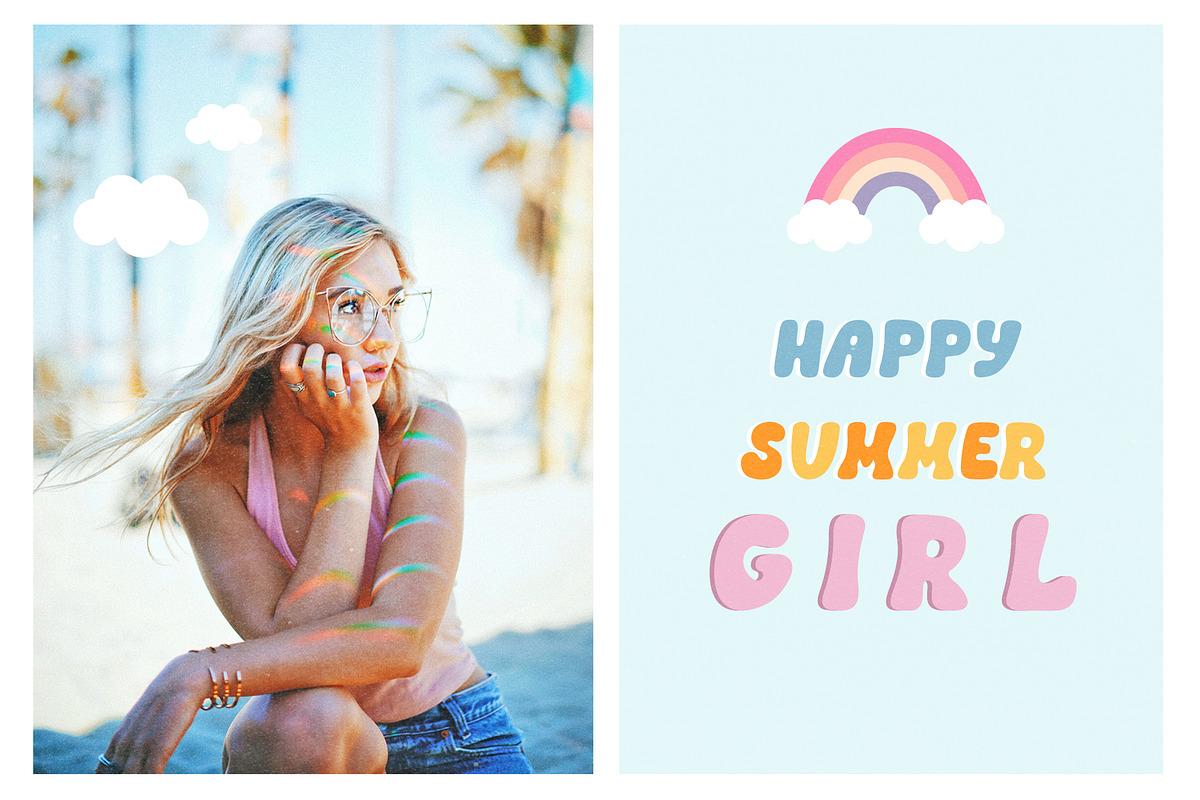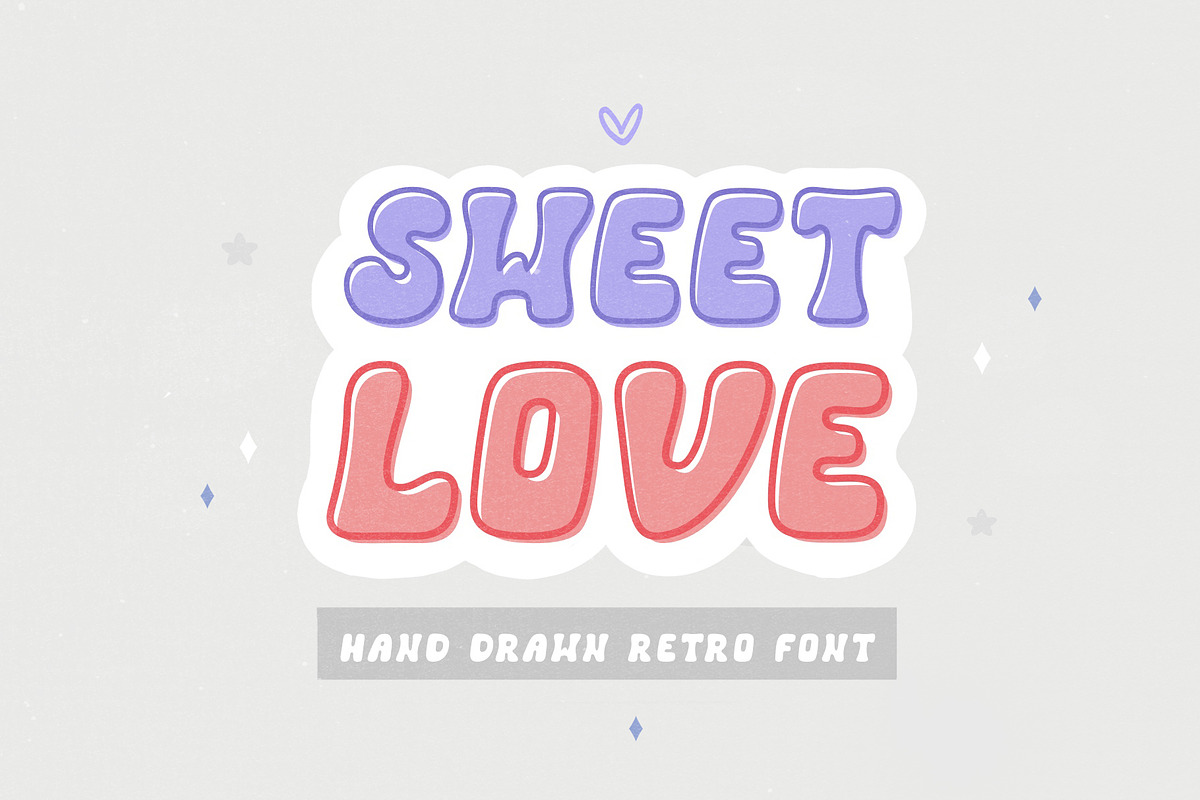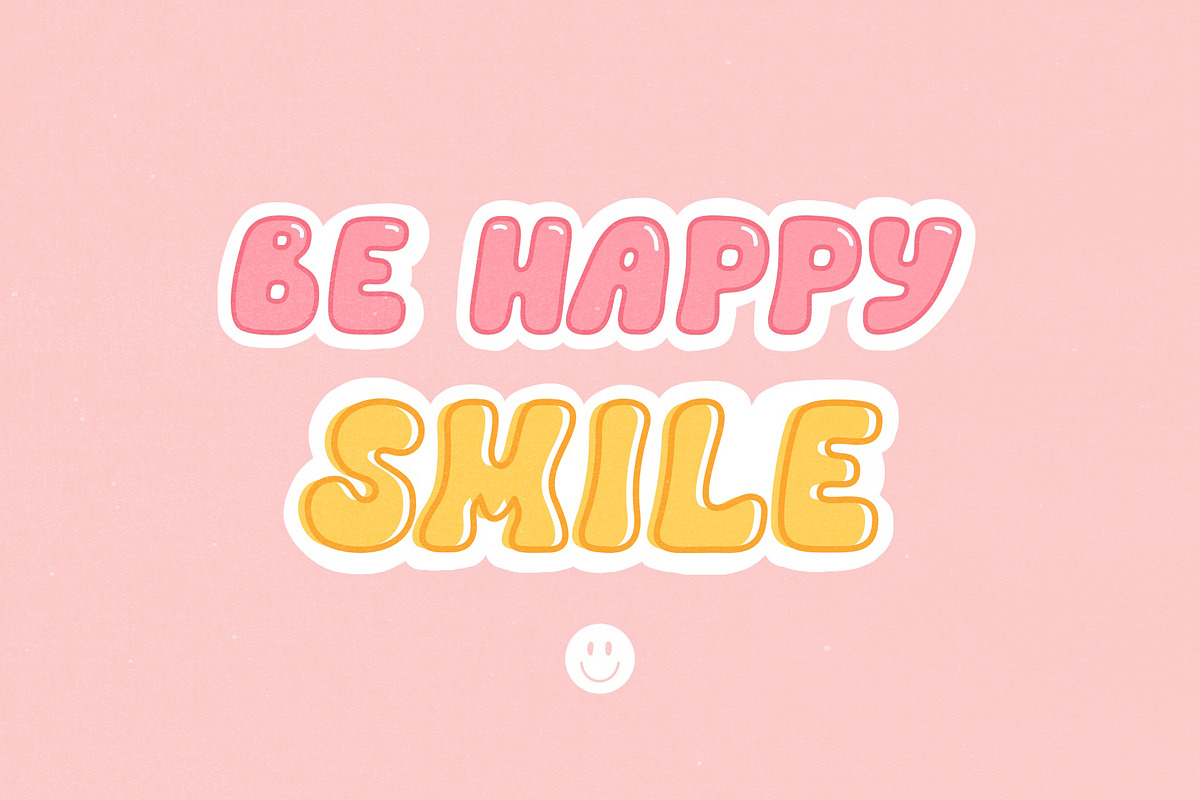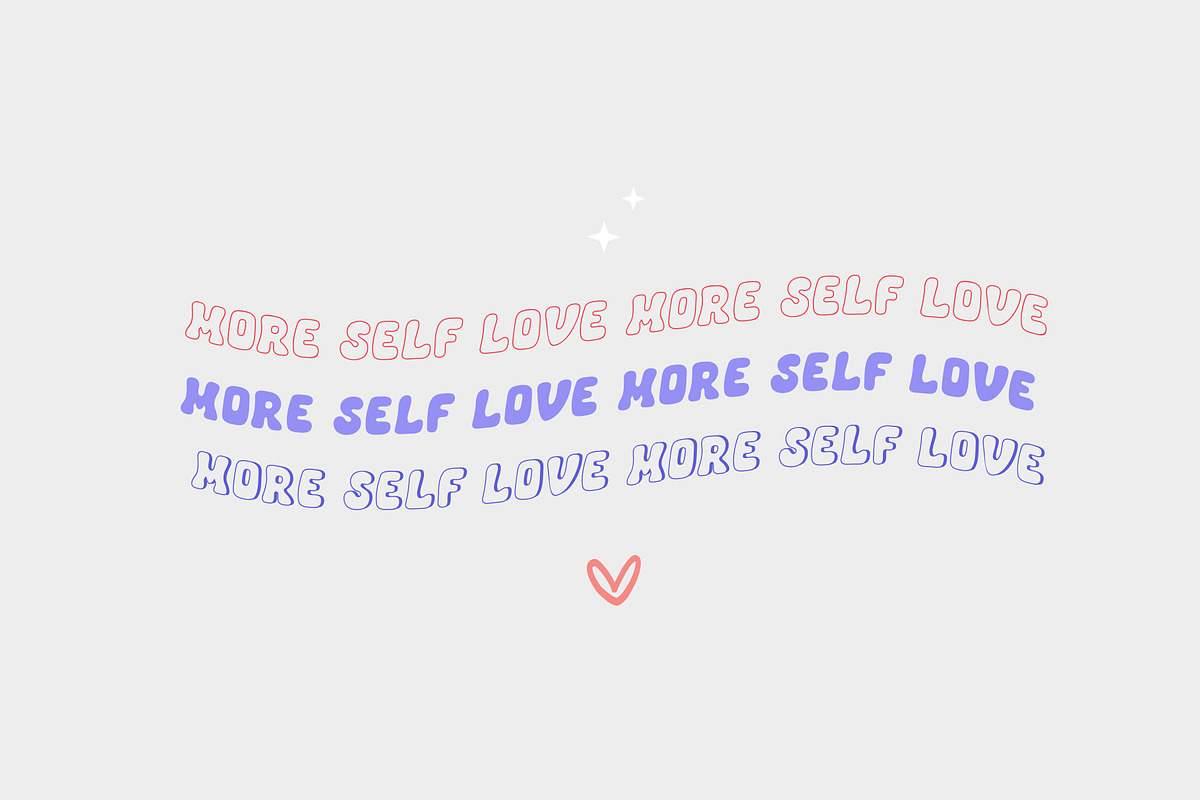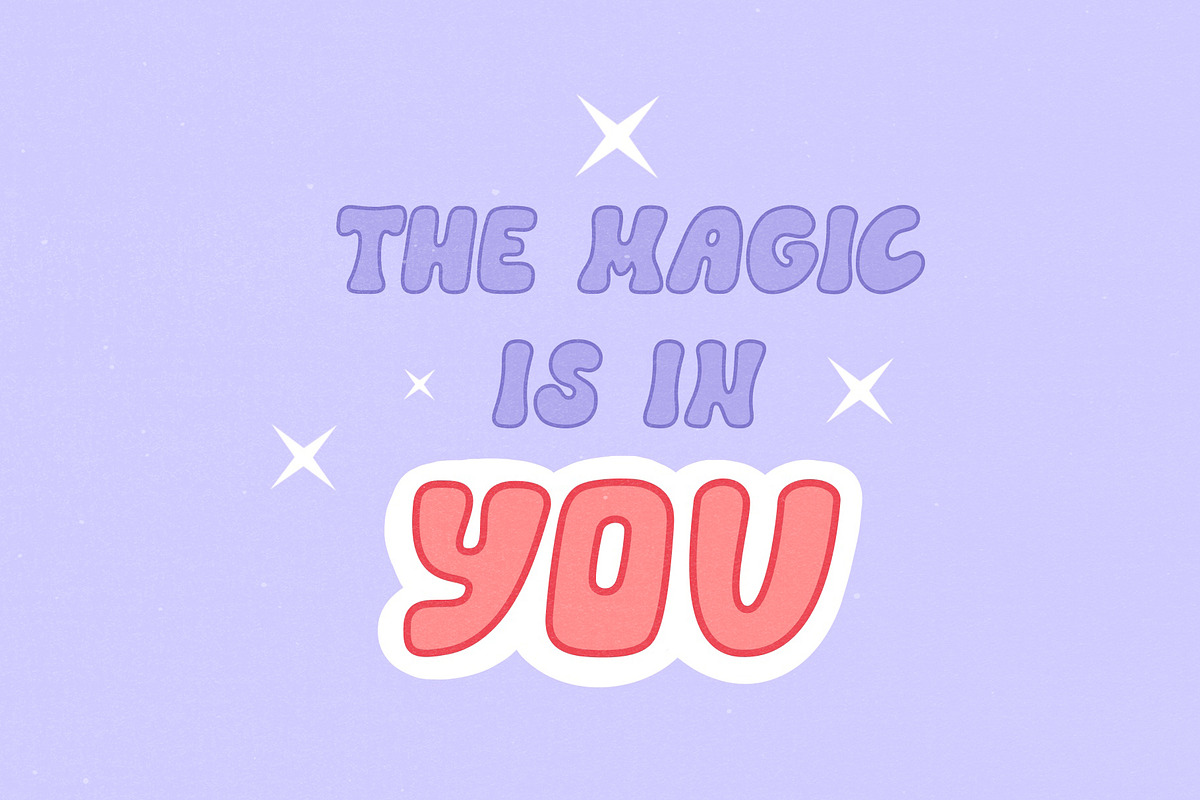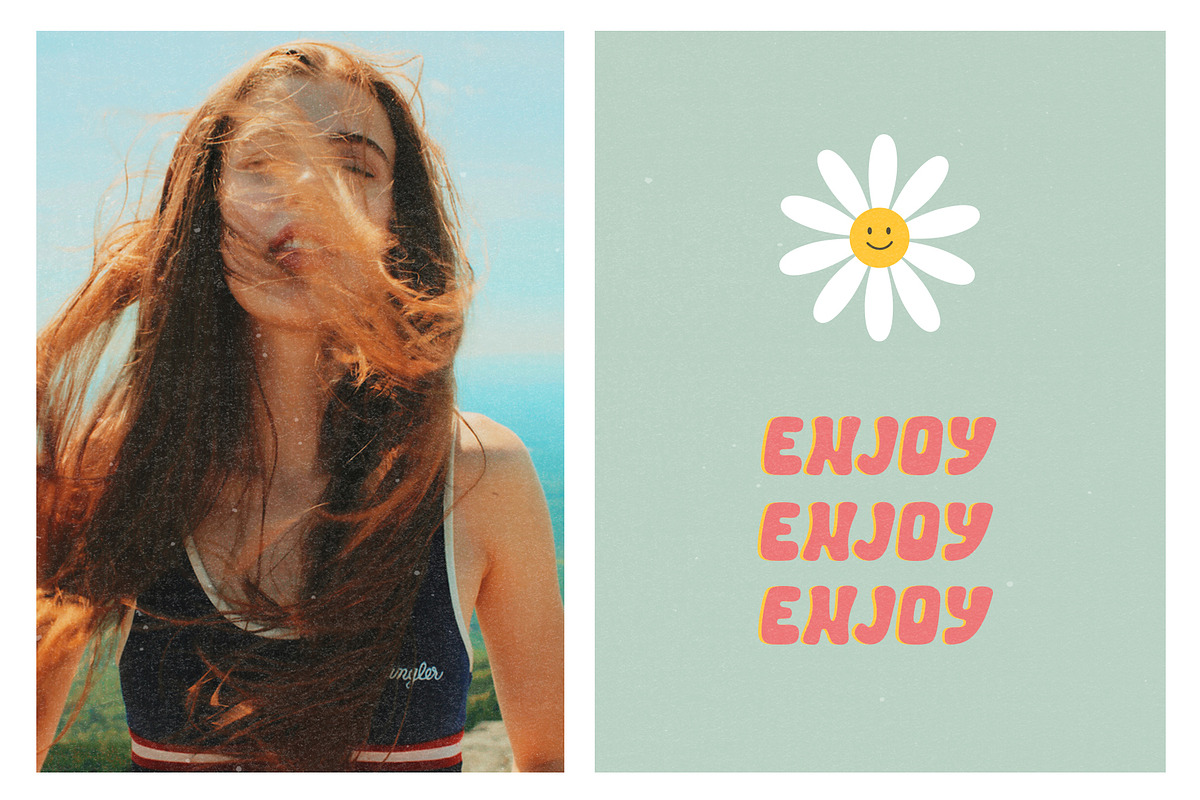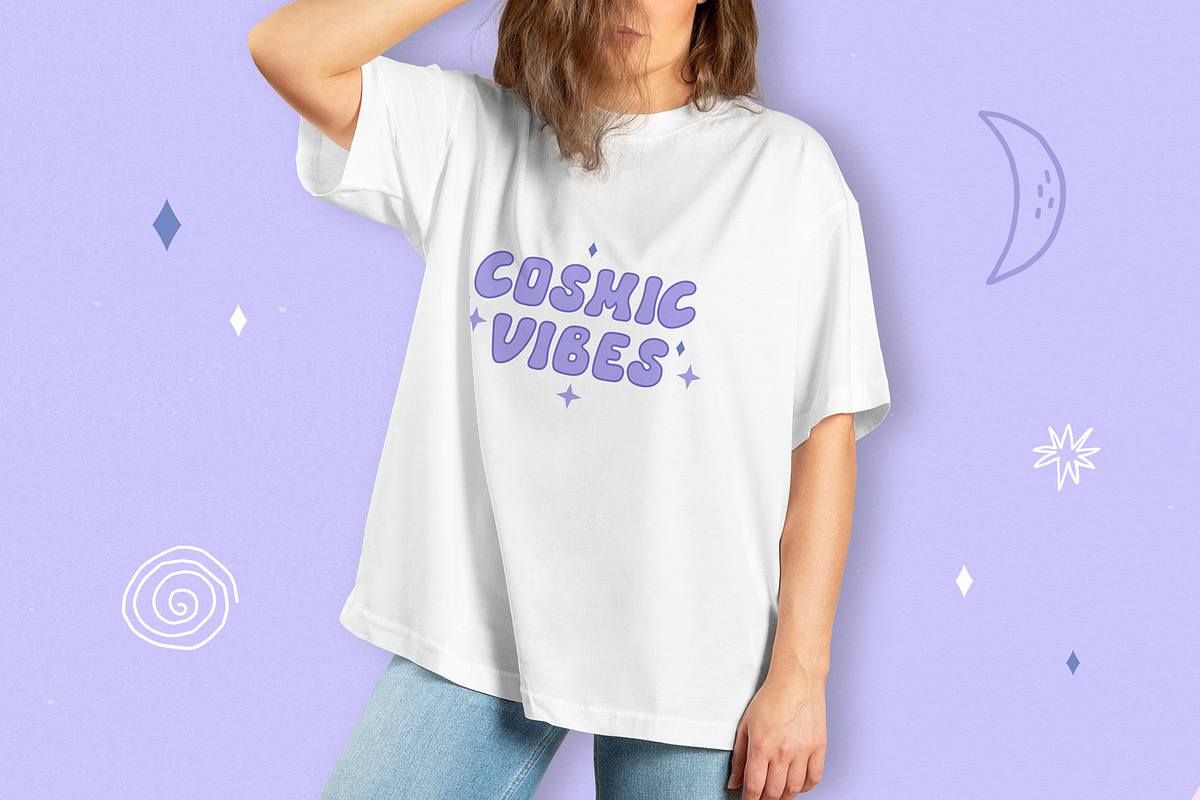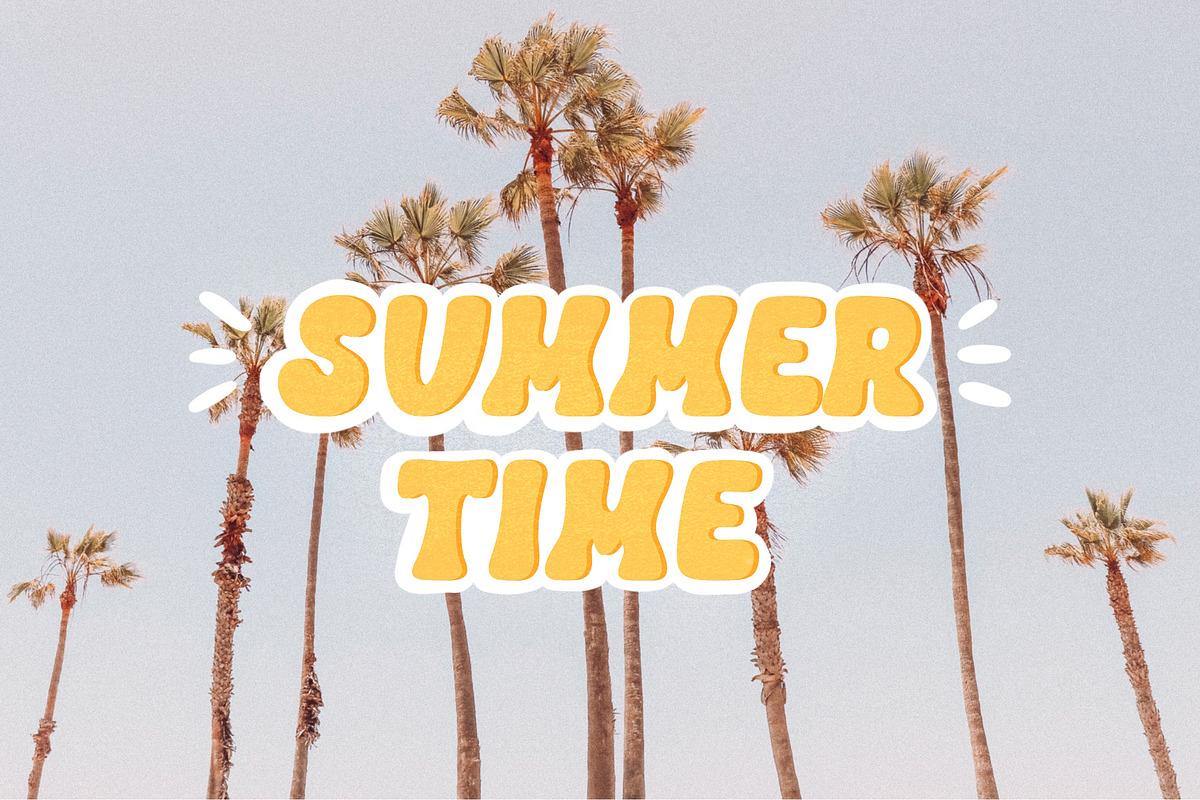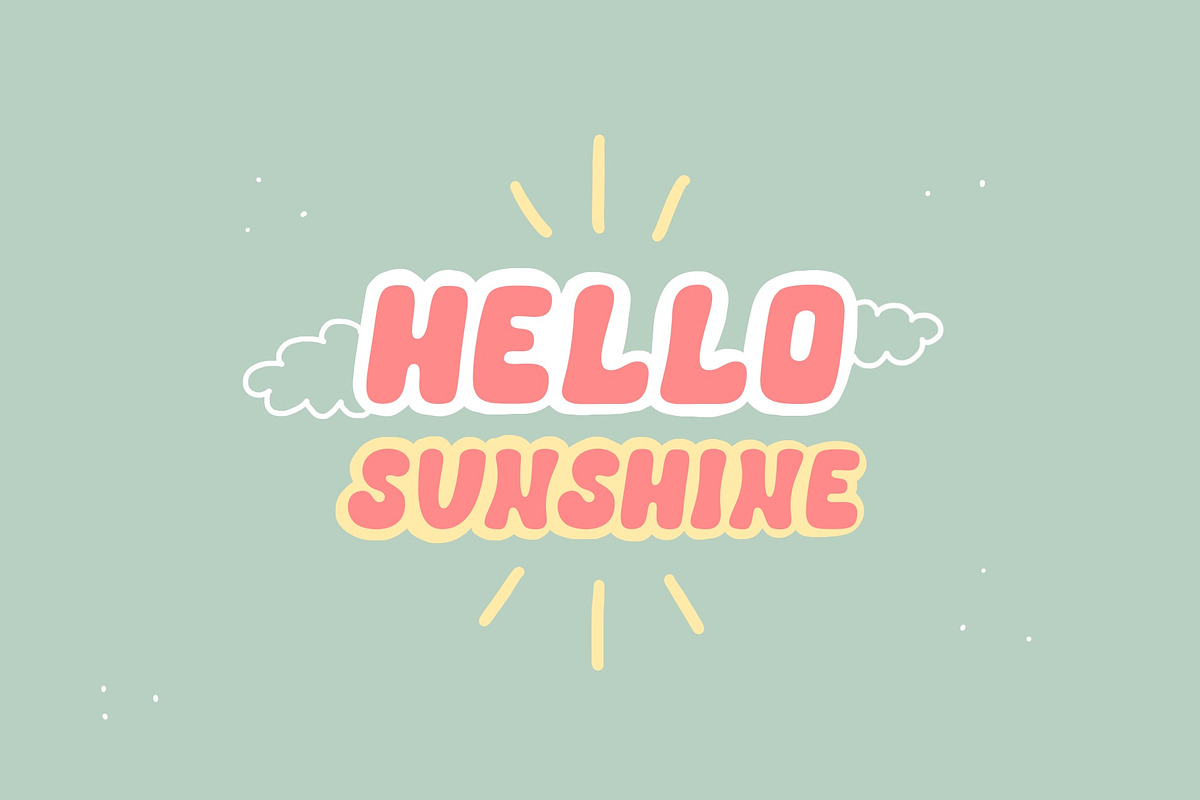
Sweetlove Hand Drawn Retro Font
Introducing a new hand drawn retro font - Sweetlove. The font includes three styles of typeface!
This font is perfect for all of your craft projects, branding, logos, social media quotes, stickers, posters, vintage designs, wall art, stickers, shirts, quotes and more!